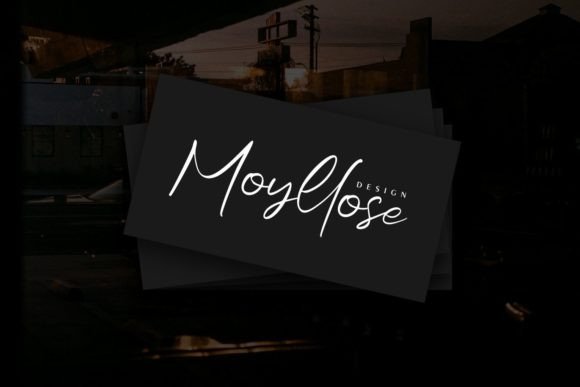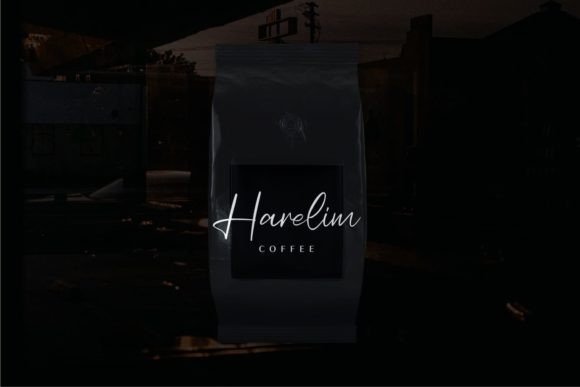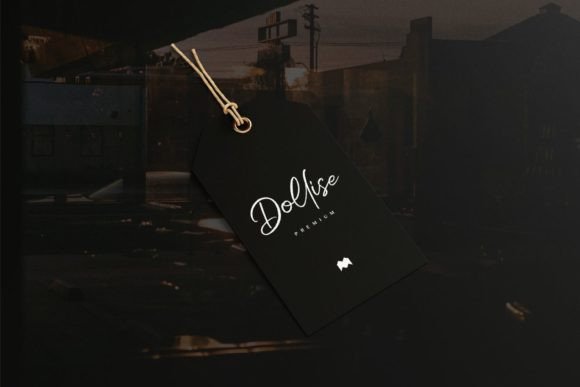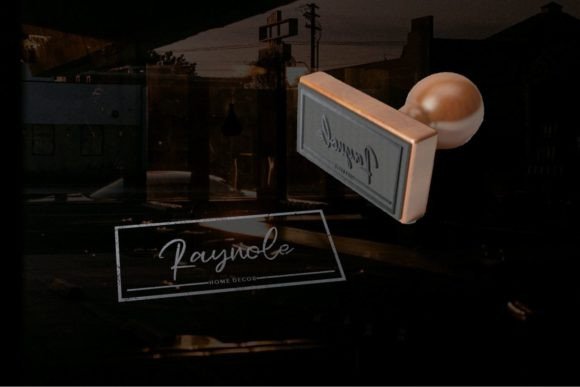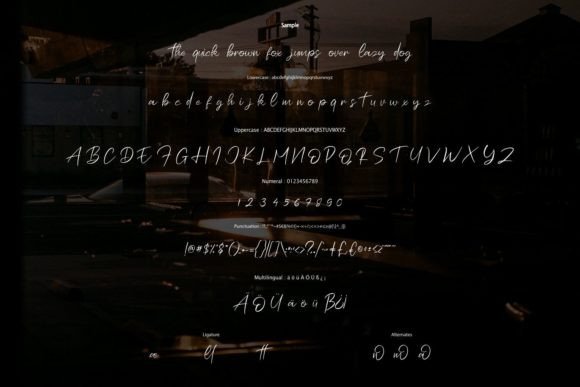
Discover the Elegance of Brethan Font: A Delicate Handwritten Masterpiece
Are you a designer or crafter looking for a font that exudes elegance and sophistication? Look no further than the Brethan Font. This delicate and elegant handwritten font is sure to capture your heart with its distinct and well-balanced letters, making it a masterpiece in the world of typography.
The Characteristics of Brethan Font
Brethan Font boasts an incredibly versatile style that can be used to create spectacular designs. Its unique characteristics include:
- Delicate and Elegant: Brethan Font features a delicate and elegant design that is perfect for creating sophisticated and refined designs.
- Handwritten Style: The font’s handwritten style gives it a personal and human touch, making it ideal for designs that require a more personal approach.
- Distinct and Well-Balanced Letters: The font’s letters are distinct and well-balanced, making it easy to read and understand.
- Versatile: Brethan Font is incredibly versatile, making it suitable for a wide range of design projects, from wedding invitations to branding and packaging.
Uses of Brethan Font
Brethan Font can be used in a variety of design projects, including:
- Wedding Invitations: The font’s elegant and sophisticated design makes it perfect for wedding invitations, save-the-date cards, and other wedding-related designs.
- Branding and Packaging: Brethan Font can be used to create stunning brand identities and packaging designs that exude elegance and sophistication.
- Stationery: The font can be used to create beautiful stationery, including letterheads, business cards, and journals.
- Digital Designs: Brethan Font can be used in digital designs, such as social media graphics, blog headers, and website designs.
Why Choose Brethan Font?
There are many reasons why designers and crafters choose Brethan Font for their design projects. Here are a few:
- Unique and Elegant Design: Brethan Font features a unique and elegant design that sets it apart from other fonts.
- Highly Versatile: The font’s versatility makes it suitable for a wide range of design projects.
- Easy to Read: The font’s well-balanced letters make it easy to read and understand.
- Supports Multiple Languages: Brethan Font supports multiple languages, making it a great choice for designers who work with international clients.
Tips for Using Brethan Font
Here are a few tips for using Brethan Font in your design projects:
- Pair it with Other Fonts: Brethan Font can be paired with other fonts to create a unique and interesting design.
- Use it for Headings and Titles: The font’s elegant design makes it perfect for headings and titles.
- Experiment with Different Colors: Brethan Font can be used with a variety of colors to create different effects and moods.
- Pay Attention to Kerning: Make sure to pay attention to kerning when using Brethan Font to ensure that the letters are evenly spaced.
In conclusion, Brethan Font is a delicate and elegant handwritten font that is sure to capture your heart. Its distinct and well-balanced letters make it a masterpiece in the world of typography. With its incredibly versatile style, Brethan Font can be used to create spectacular designs that exude elegance and sophistication. Whether you’re a designer or crafter, Brethan Font is a great choice for your next design project.